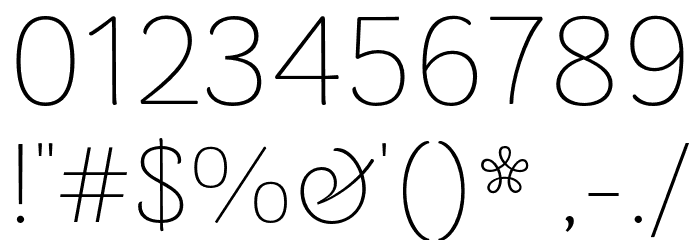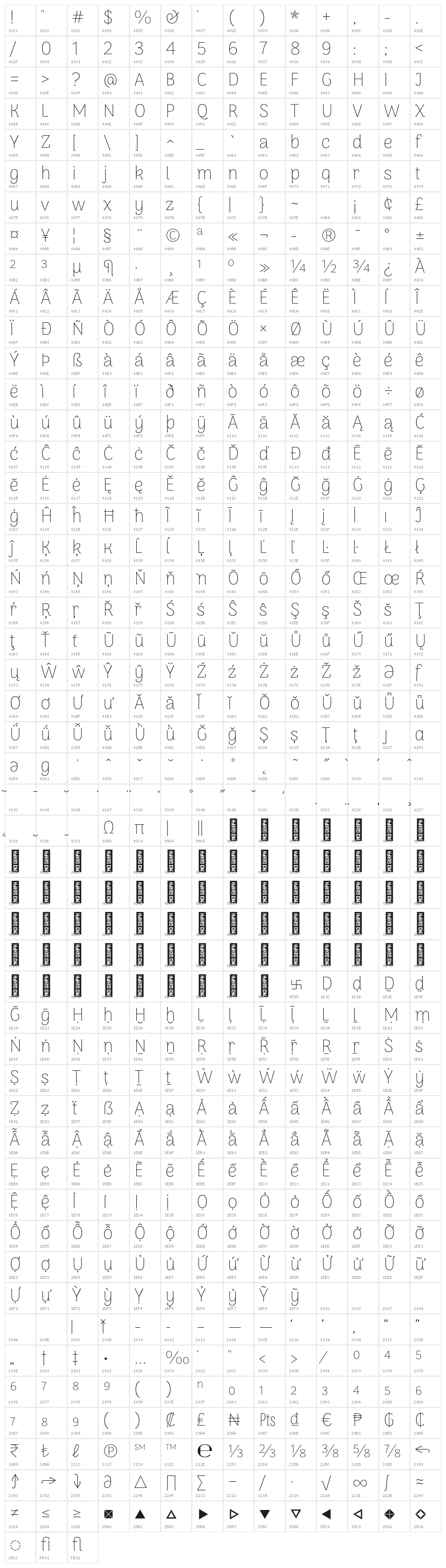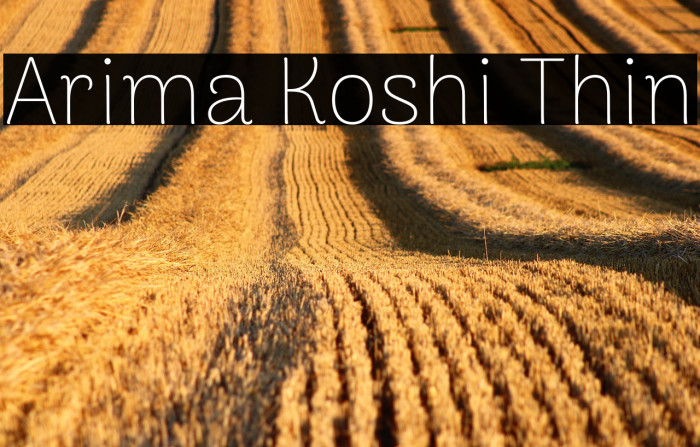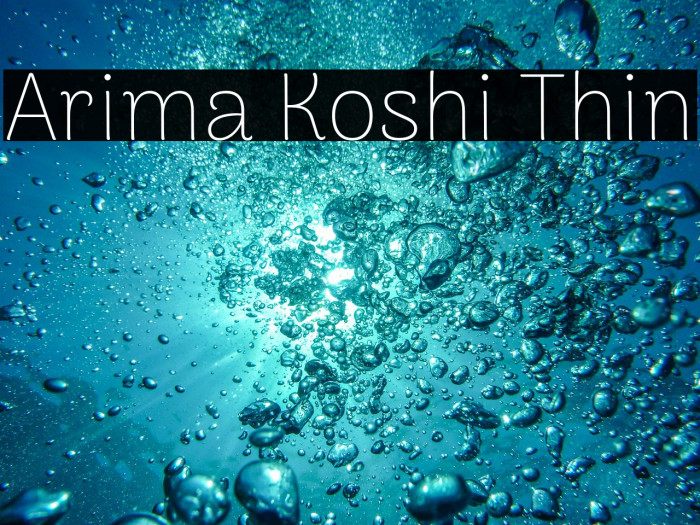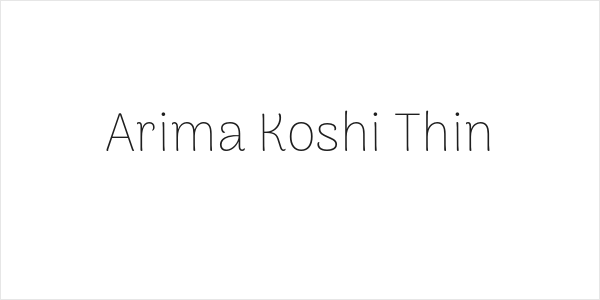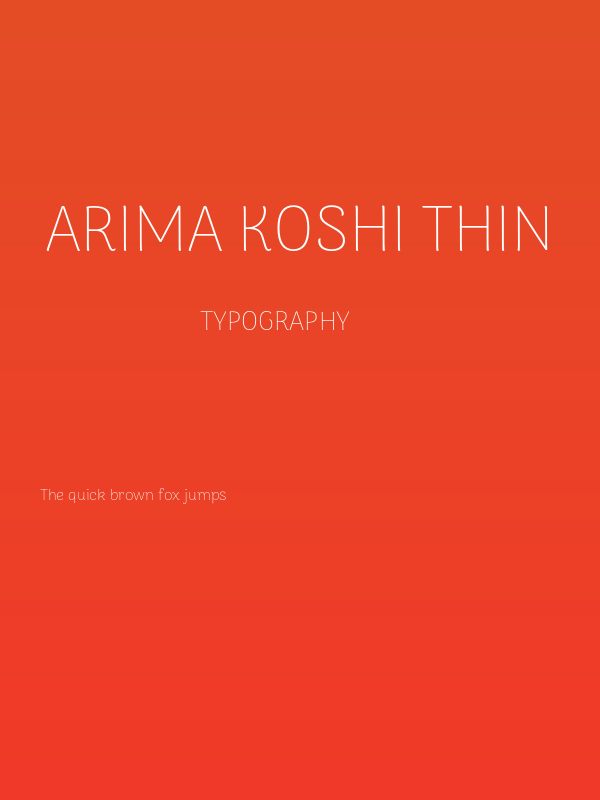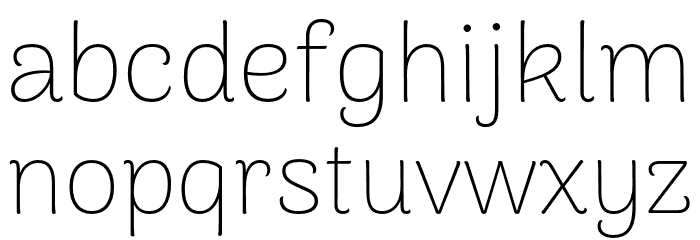
Arima Koshi Thin Font
Arima Koshi Thin Description
This font features a clean and modern design with a thin, elegant stroke. The characters are well-proportioned and maintain a consistent line weight throughout, giving it a refined and sophisticated appearance. The uppercase letters are slightly taller than the lowercase, which are rounded and smooth, contributing to a harmonious and balanced look. The numerals are clear and legible, with a uniform height that matches the uppercase letters. Special characters are thoughtfully designed, maintaining the overall aesthetic of the font. The simplicity and clarity of this font make it versatile for various design applications.